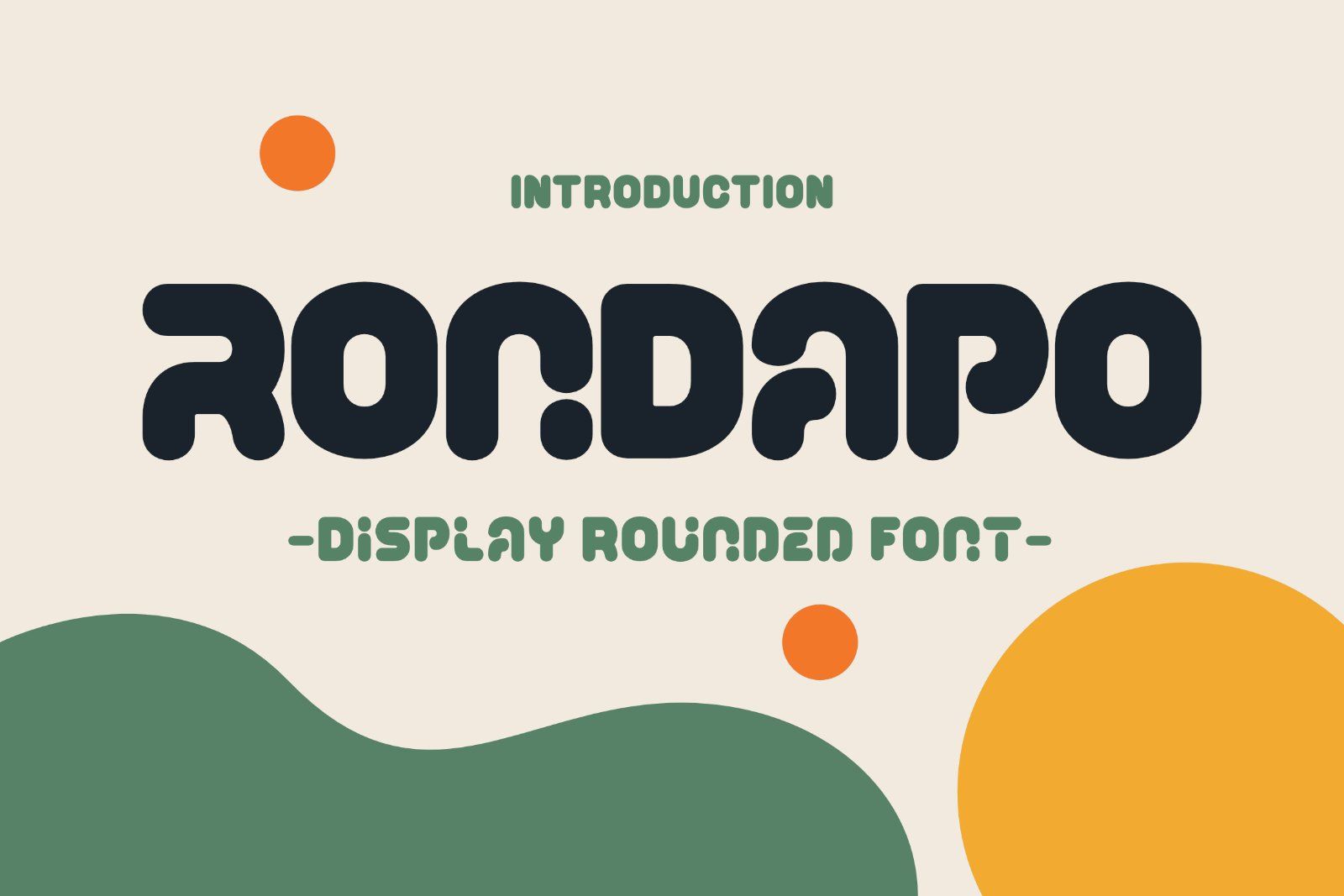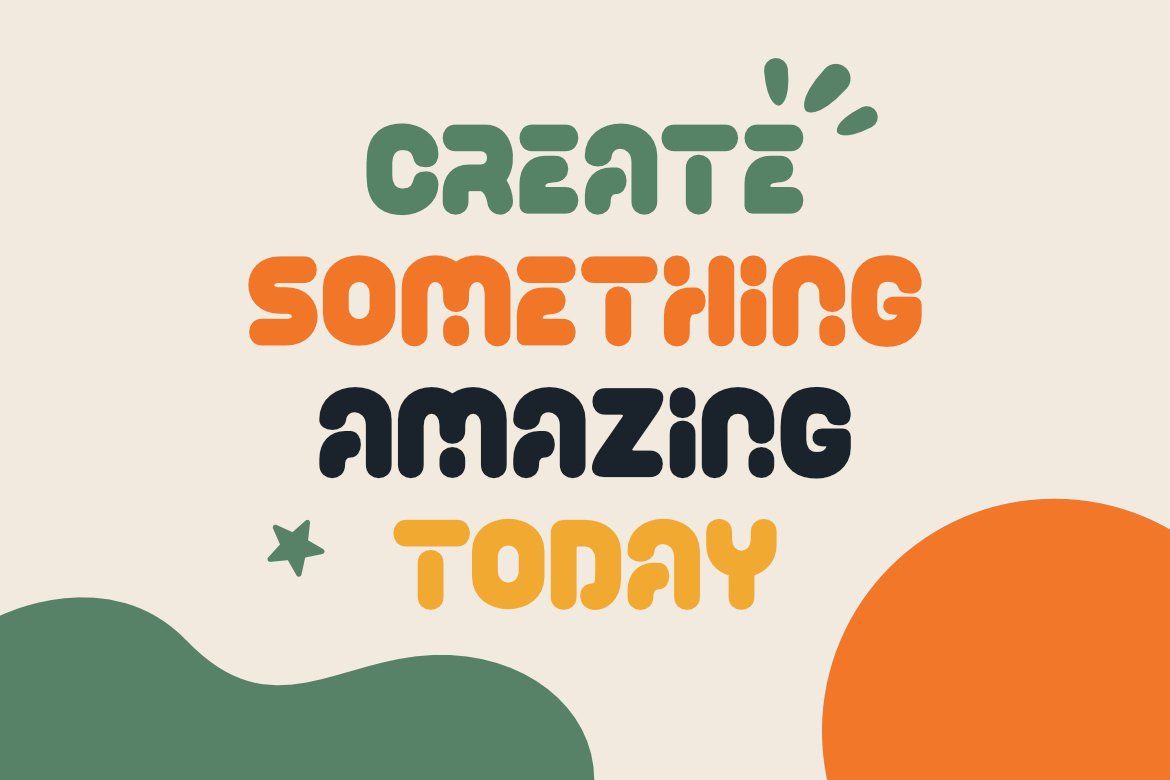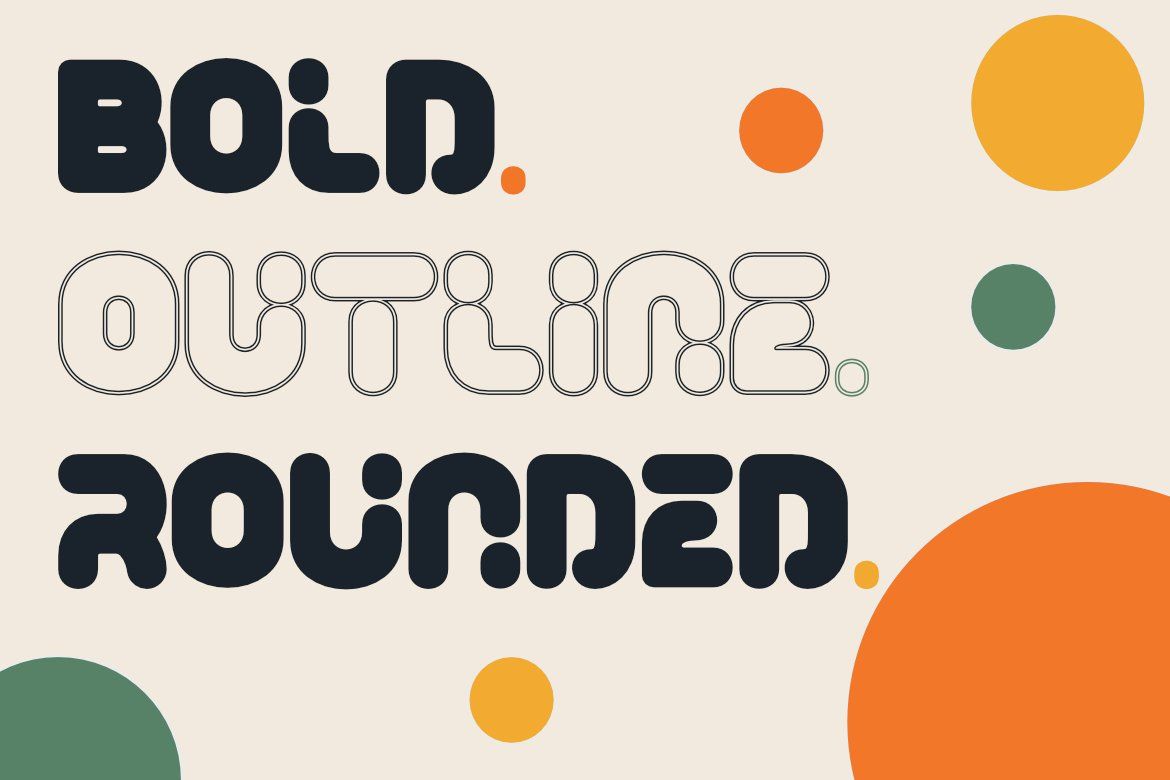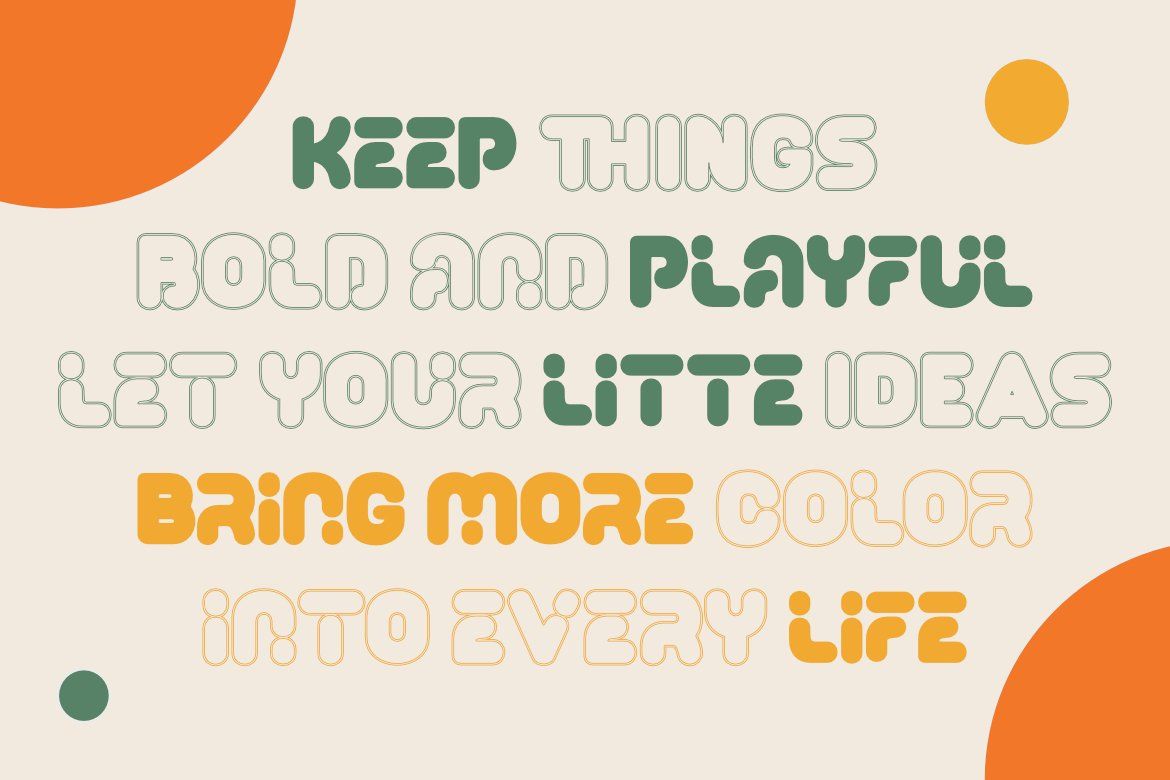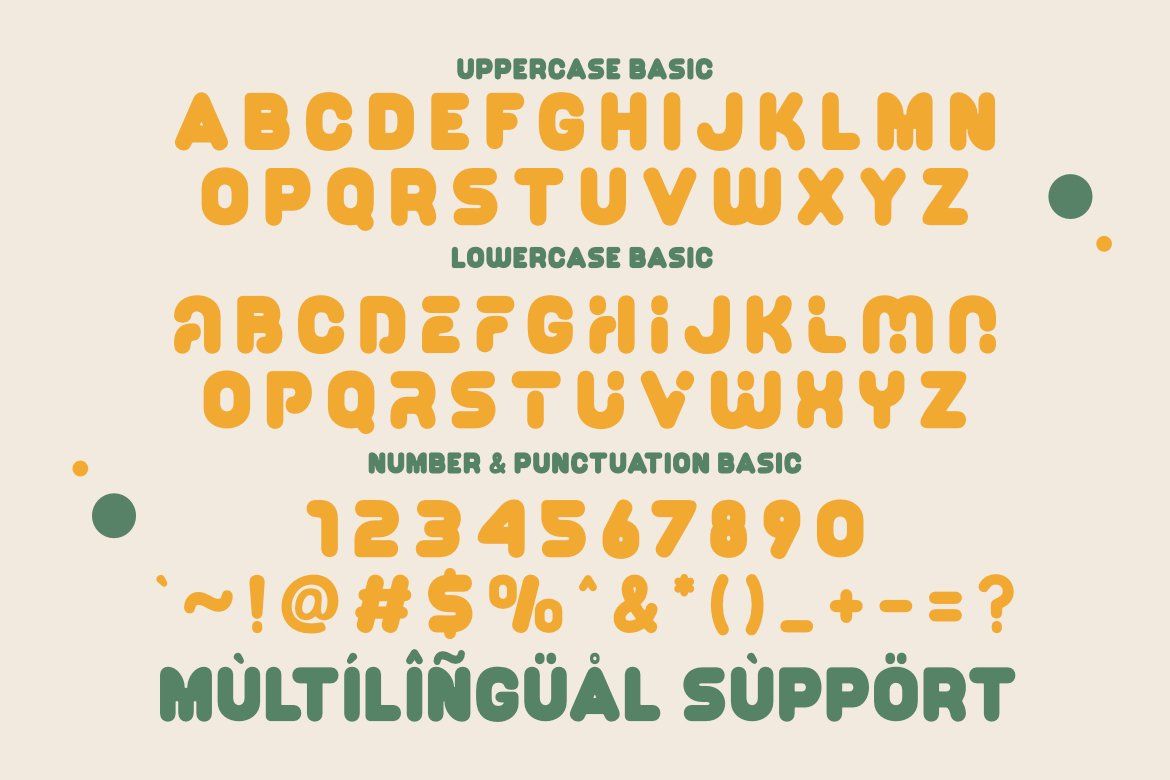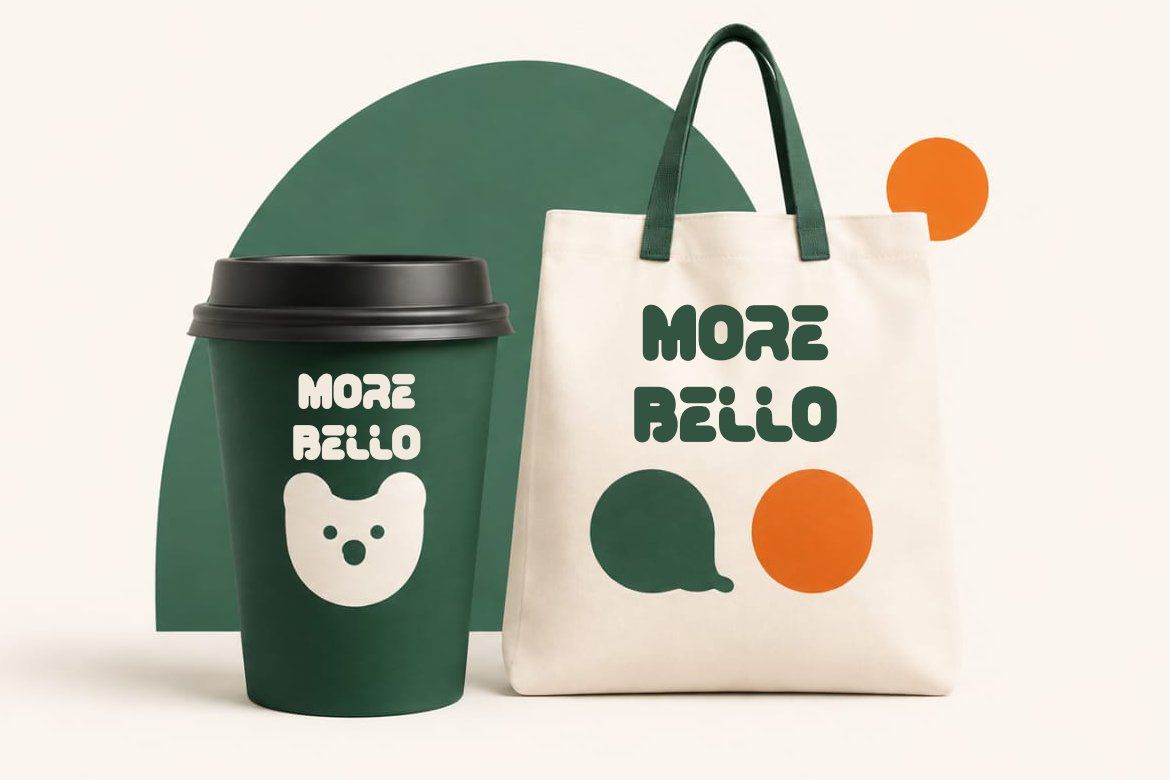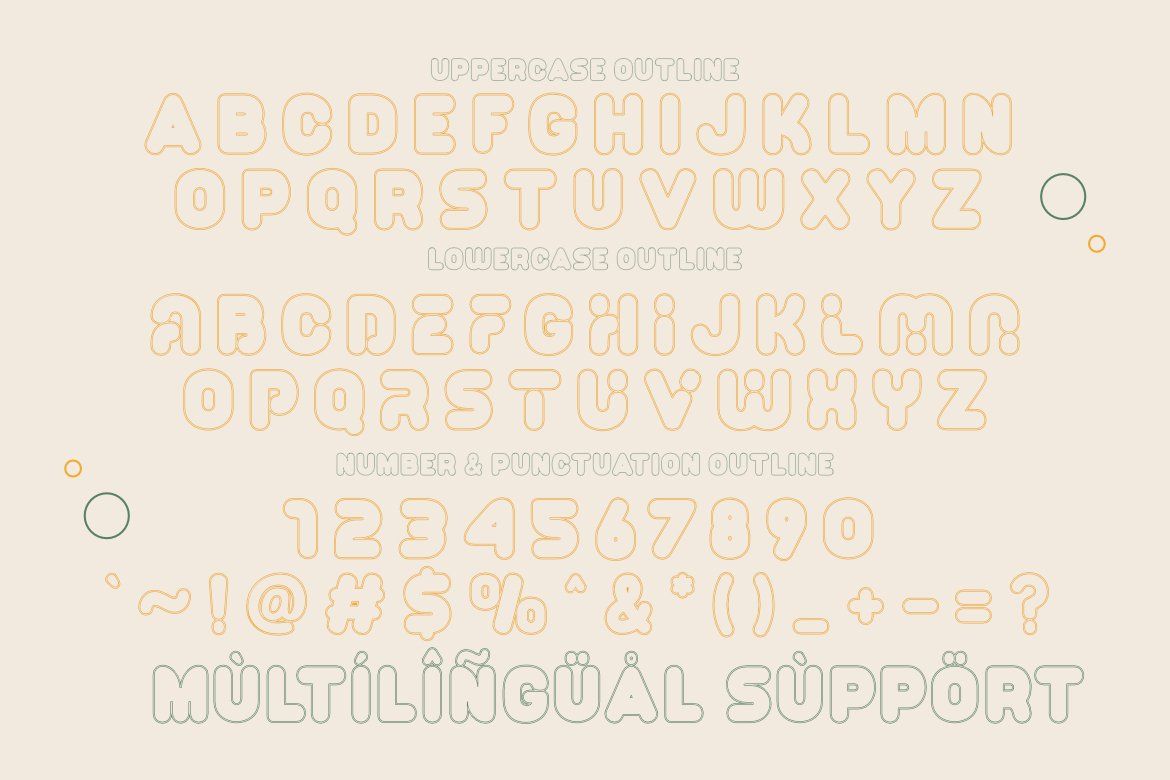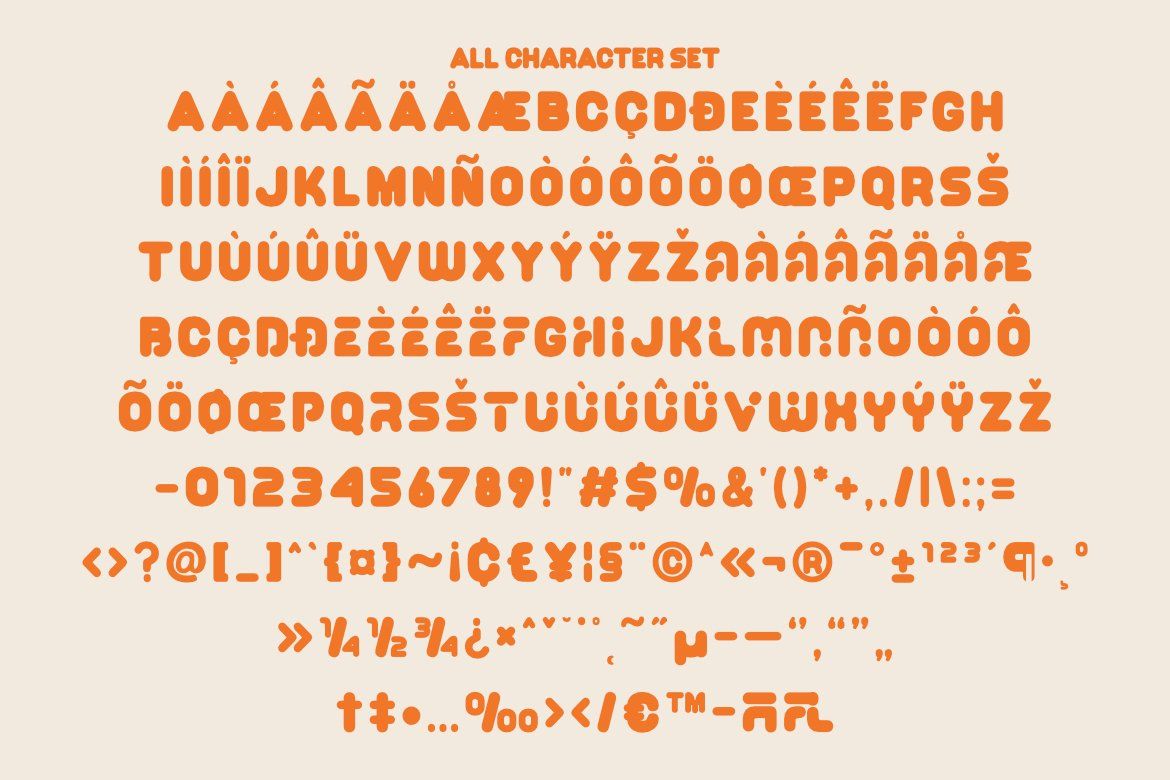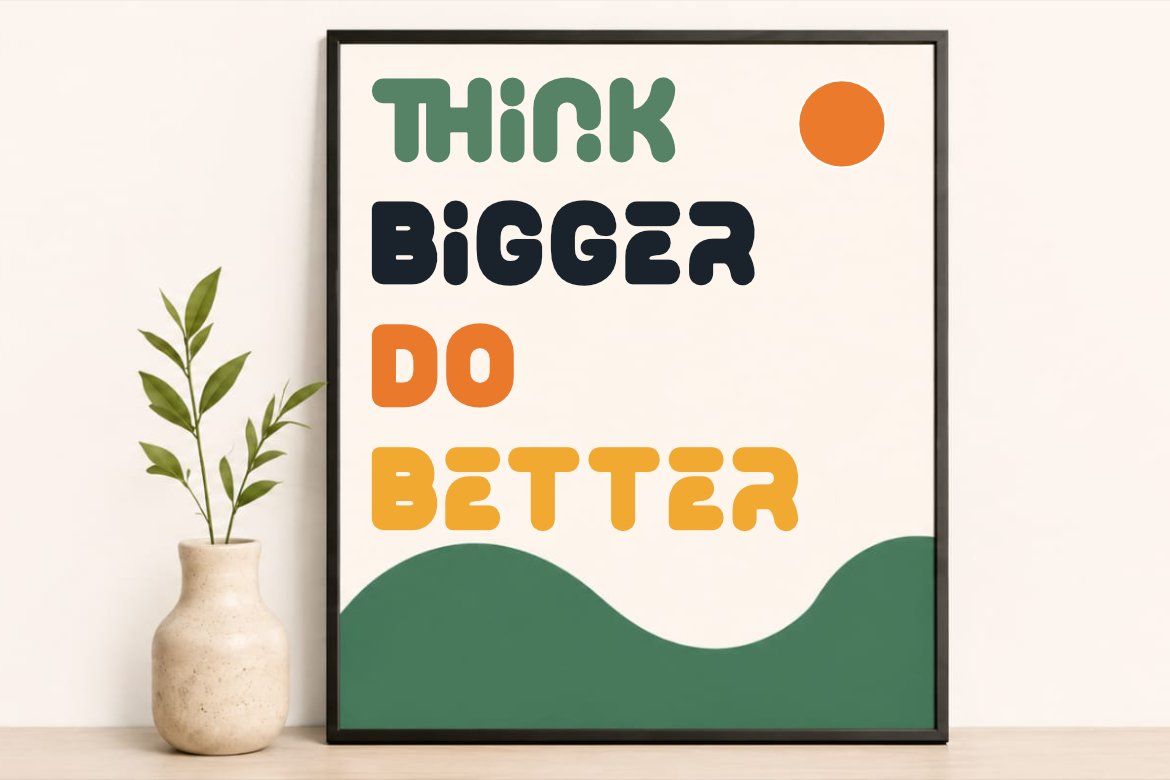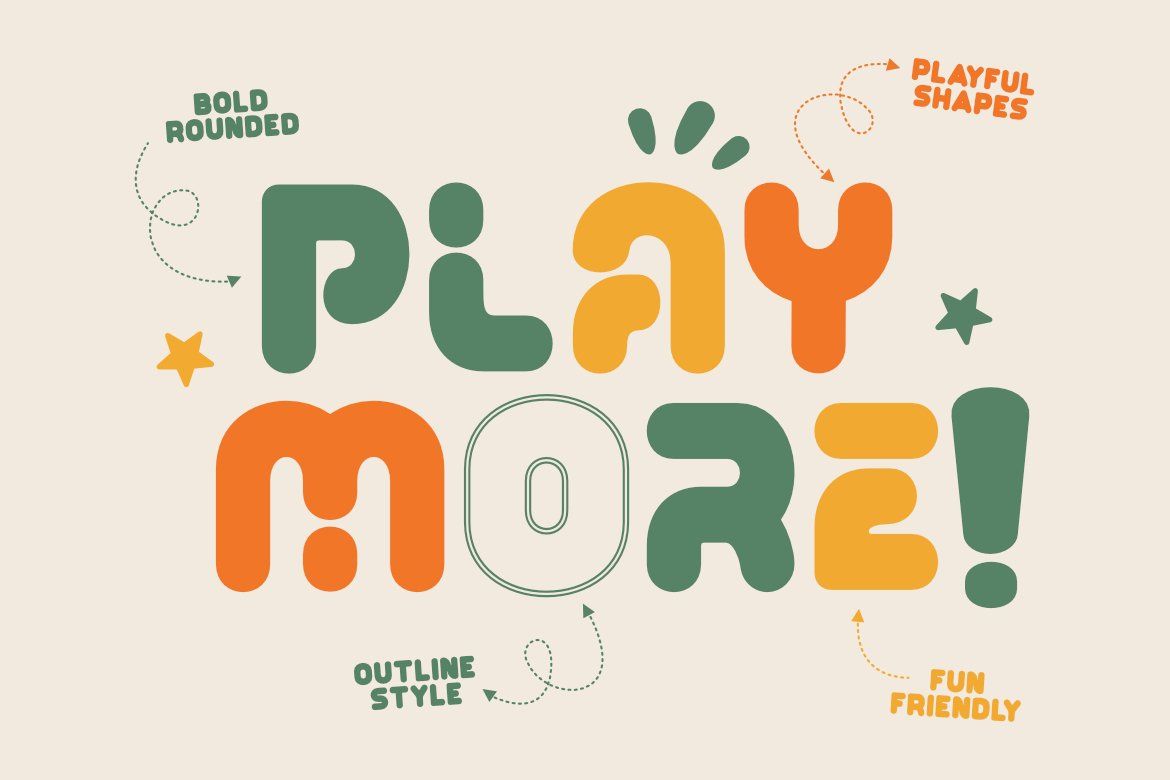
Rondapo is a bold and playful rounded display typeface created to bring a friendly, expressive, and cheerful personality to your designs. Its soft curves, chunky proportions, and distinctive rounded details create a memorable visual style that feels modern, approachable, and fun.
Designed for attention-grabbing typography, Rondapo works beautifully for branding, packaging, posters, social media graphics, children's projects, apparel, stickers, and other creative applications where personality matters.
With its combination of solid and outline styles, Rondapo gives you the flexibility to create both strong visual statements and lighter decorative compositions.
FEATURES :
Bold rounded display style
Playful and friendly letterforms
Solid style
Outline style
Uppercase characters
Lowercase characters
Numbers & punctuation
Multilingual character support
Distinctive rounded terminals and curves
Strong headline presence
Excellent for large display typography
Suitable for colorful and contemporary branding
Designed for both playful and creative compositions
PERFECT FOR :
Logo & Brand Identity
Packaging Design
Poster & Flyer Design
Children's Branding
Toy & Product Branding
Café & Food Branding
Apparel & T-Shirt Design
Sticker & Label Design
Social Media Graphics
Advertising
Editorial Headlines
Invitations
Birthday Designs
Merchandise
Creative Campaigns
Lifestyle Projects
Rondapo is especially effective when used at large sizes, allowing its rounded construction and playful details to become the main visual element of the composition. The outline version can also be combined with the solid version to create layered, colorful, and expressive typography.
Whether you're creating a cheerful brand identity, a fun packaging concept, an eye-catching poster, or a playful social media campaign, Rondapo is designed to make your typography stand out while keeping the overall feeling approachable and fun.